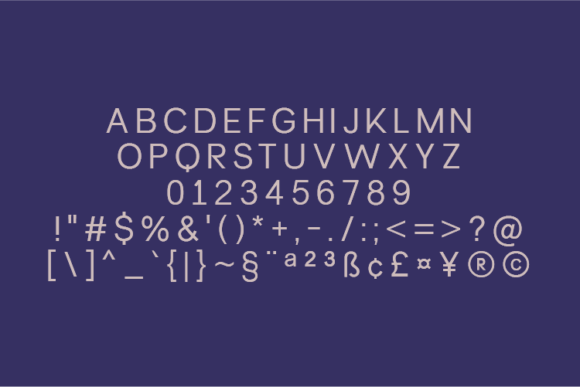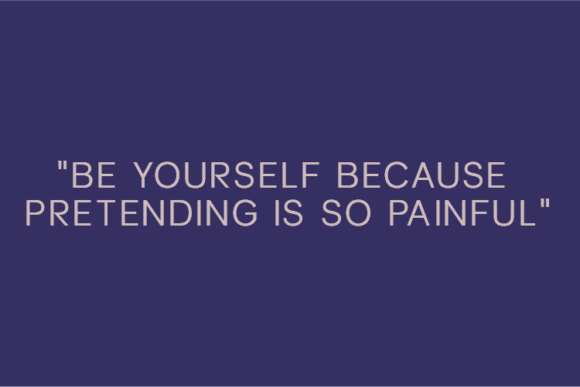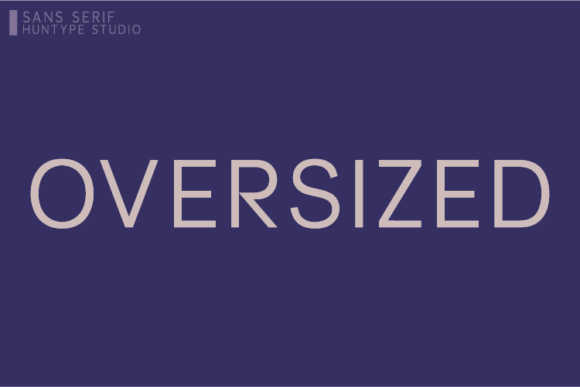
Introduction to Oversized Font
Oversized is an all-caps sans serif font that is so versatile and looks great in just about any context.
With smooth and clean lines and just a touch of contrast, this font works beautifully for logos, branding, and web headings .
Key Features of Oversized Font